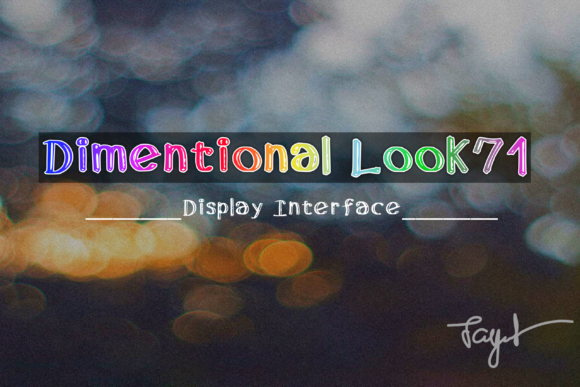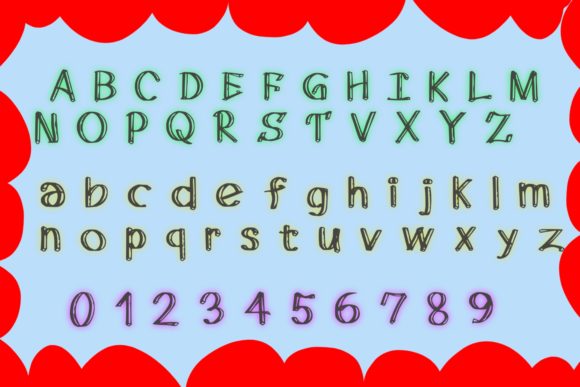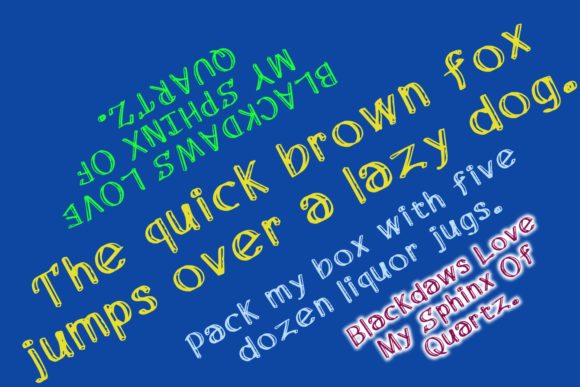
Dimensional Look71
About Dimensional Look71 Font
Dimensional Look71 is a cool and friendly display font. It is ideal for writing web designs, business cards, or pretty much anything else that requires a unique touch.